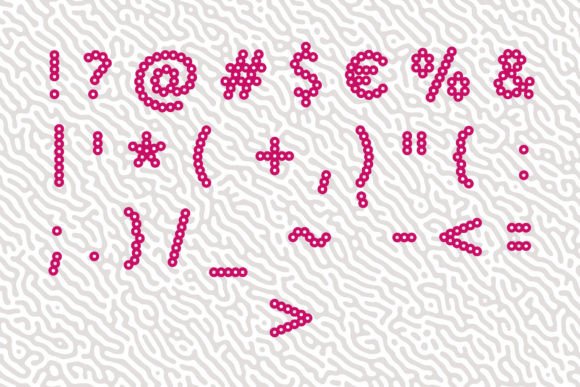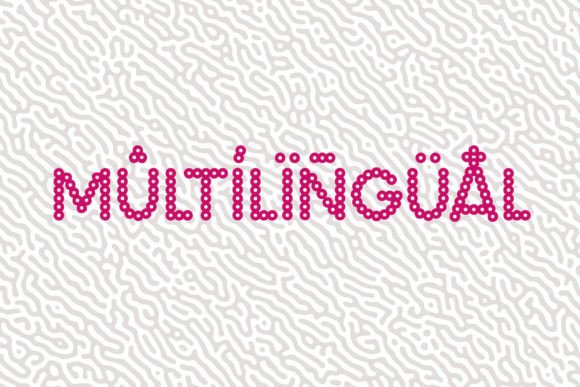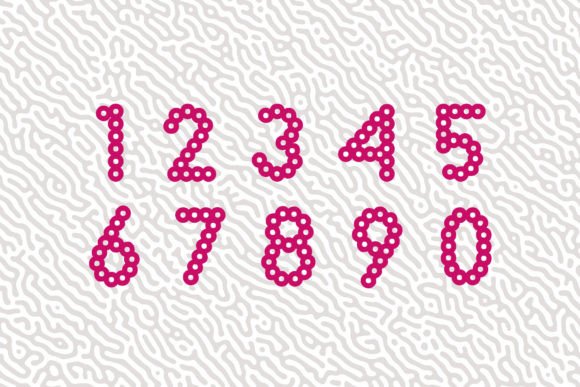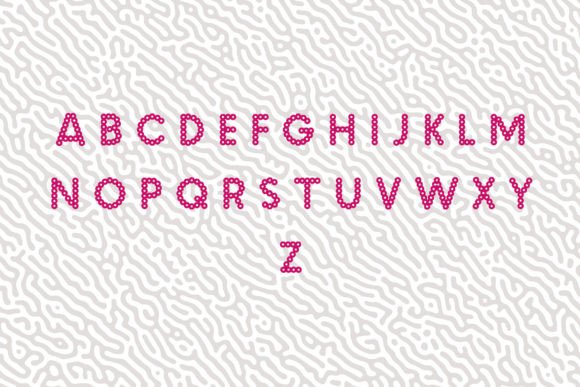
Introducing Chain Link Font: The Cool and Fun Display Font You Need
Are you tired of using the same old fonts in your designs? Do you want to add a touch of uniqueness and playfulness to your creations? Look no further than Chain Link Font, a cool and fun display font that’s perfect for designers and crafters alike. In this article, we’ll dive into the world of Chain Link Font and explore its features, benefits, and uses.
What is Chain Link Font?
Chain Link Font is a display font that’s designed to add a touch of whimsy and fun to your designs. With its chain link-inspired letters, this font is perfect for creating eye-catching headlines, titles, and captions. Whether you’re working on a graphic design project, crafting a logo, or creating social media graphics, Chain Link Font is a great addition to your font library.
Key Features of Chain Link Font
- Unique Design: Chain Link Font features a one-of-a-kind design that’s inspired by chain links. Each letter is carefully crafted to resemble a chain link, giving your designs a fun and playful touch.
- High-Quality Letters: The font features high-quality letters that are clear and legible, making it perfect for use in a variety of designs.
- Versatile: Chain Link Font is a versatile font that can be used in a wide range of designs, from graphic design projects to crafting and DIY projects.
- Easily Customizable: The font is easily customizable, allowing you to adjust the size, color, and style to fit your design needs.
Benefits of Using Chain Link Font
So, why should you use Chain Link Font in your designs? Here are just a few benefits of using this cool and fun display font:
- Adds a Touch of Whimsy: Chain Link Font adds a touch of whimsy and fun to your designs, making them stand out from the crowd.
- Enhances Creativity: The font’s unique design inspires creativity and encourages you to think outside the box.
- Perfect for DIY Projects: Chain Link Font is perfect for DIY projects, such as crafting, scrapbooking, and woodworking.
- Great for Social Media Graphics: The font is also great for creating social media graphics, such as Facebook posts, Instagram captions, and Twitter headers.
How to Use Chain Link Font
Using Chain Link Font is easy! Here are a few tips for incorporating this font into your designs:
- Use it as a Headline Font: Use Chain Link Font as a headline font to add a touch of whimsy and fun to your designs.
- Pair it with Other Fonts: Pair Chain Link Font with other fonts to create a unique and eye-catching design.
- Use it in Digital and Print Designs: Chain Link Font can be used in both digital and print designs, making it a versatile addition to your font library.
| Font Name | Chain Link Font |
| Author | denestudios |
In conclusion, Chain Link Font is a cool and fun display font that’s perfect for designers and crafters alike. With its unique design, high-quality letters, and versatility, this font is a great addition to any font library. Whether you’re working on a graphic design project, crafting a logo, or creating social media graphics, Chain Link Font is sure to enhance your creations and add a touch of whimsy and fun.